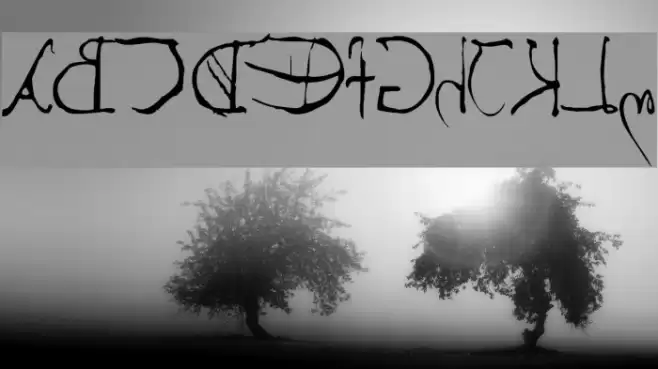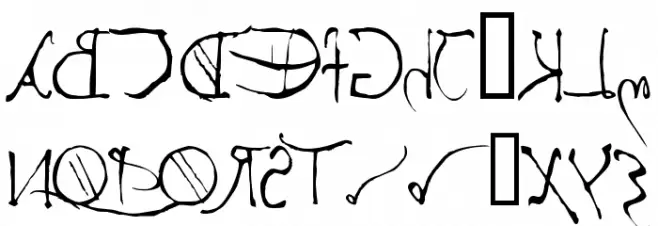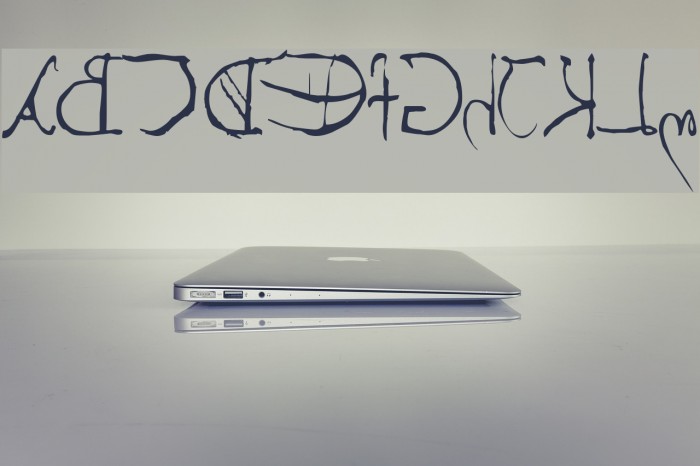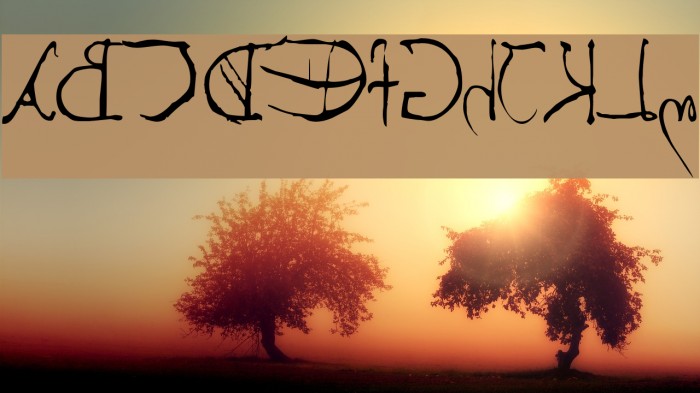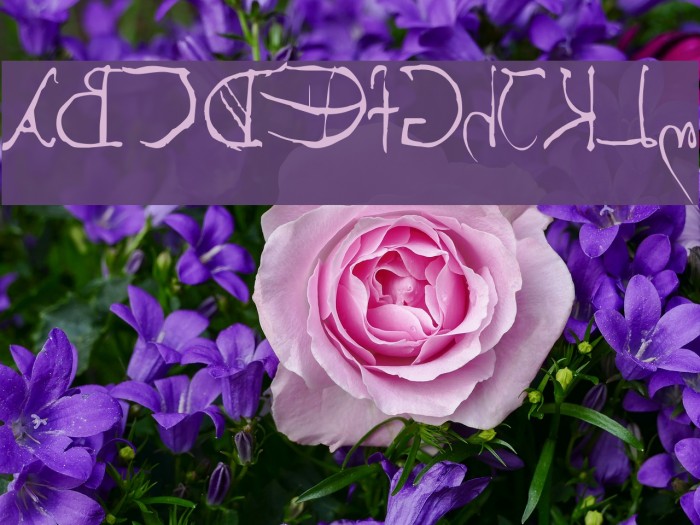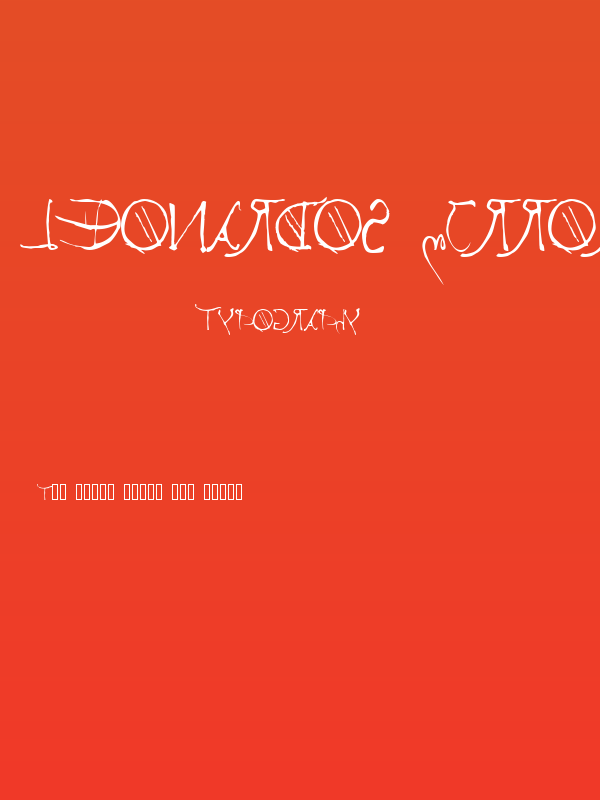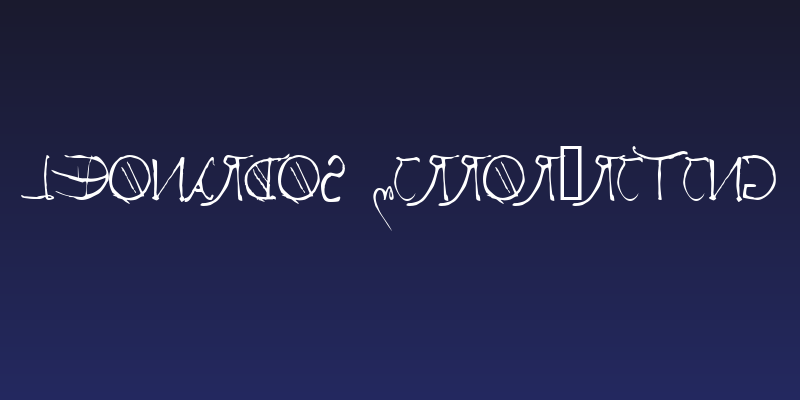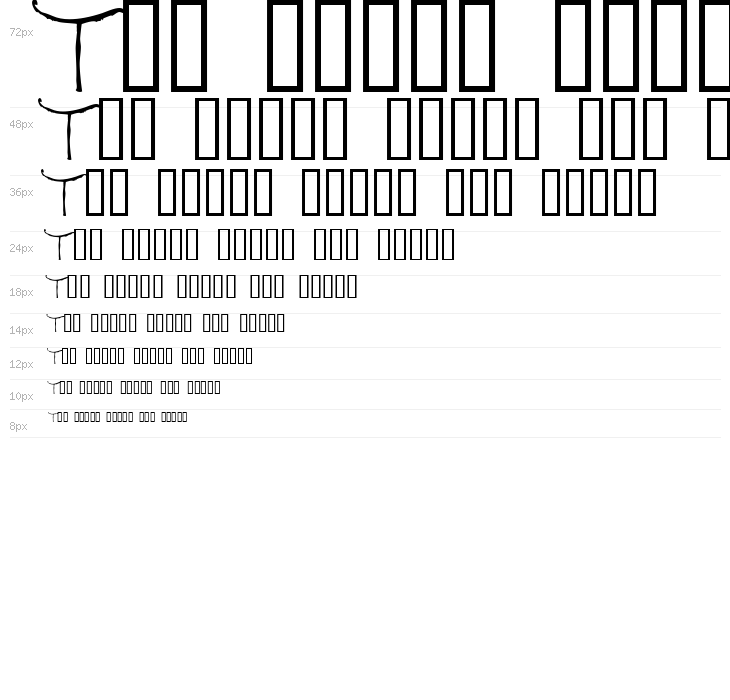
Leonardos mirrorwriting Font
Leonardos mirrorwriting Description
This font is a unique representation of mirror writing, reminiscent of Leonardo da Vinci's famous technique. The characters are intricately designed with a calligraphic style, featuring elegant curves and flourishes. Each letter appears as if it has been carefully crafted with a quill, giving it an artistic and historical feel. The strokes are varied, with some parts being thicker and others more delicate, creating a dynamic visual contrast. This font captures the essence of a bygone era, blending artistry with functionality. It is both decorative and functional, suitable for projects that require a touch of sophistication and historical intrigue.
A calligraphic mirror writing font with elegant curves and historical charm from Uncategorized fonts.
- Proposed Projects: Ideal for historical documents, artistic projects, invitations, and decorative purposes.
- Overall Style: Vintage
- Use Case: Logos, Decorative text, Artistic projects